Today, we’re excited to introduce a new project in our inspiration tab: Pastane Bakery. This branding project by Mubariz Yusifzade, an Art Director and Graphic Designer based in Baku, Azerbaijan, who showcases a new visual identity project. Discover how he employs the typeface inspired by the process of dough to create this vibrant bakery identity. Fresh from the oven for you, amigos.
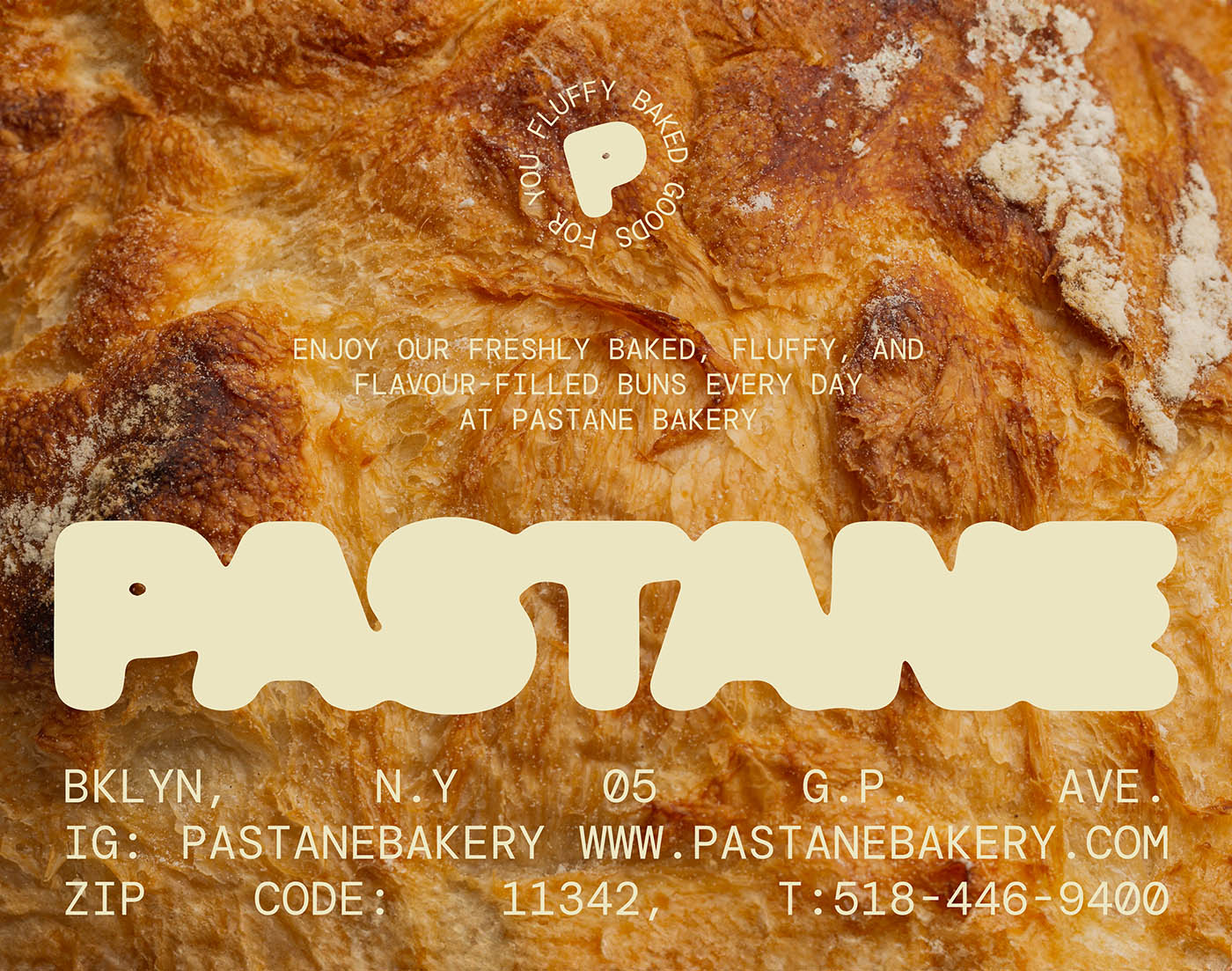
The concept behind Pastane
M: Pastane was designed as a conceptual bakery house envisioned for New York. The project was inspired by the rising process of dough during baking, symbolizing growth and transformation. This idea is visually reflected in the Pastane logo, where the typeface inspired in this process evolves as if “rising” in the oven. To add a dynamic and unique touch, custom stickers were designed for each product, which are applied individually to packaging, reinforcing the brand’s playful yet refined identity.
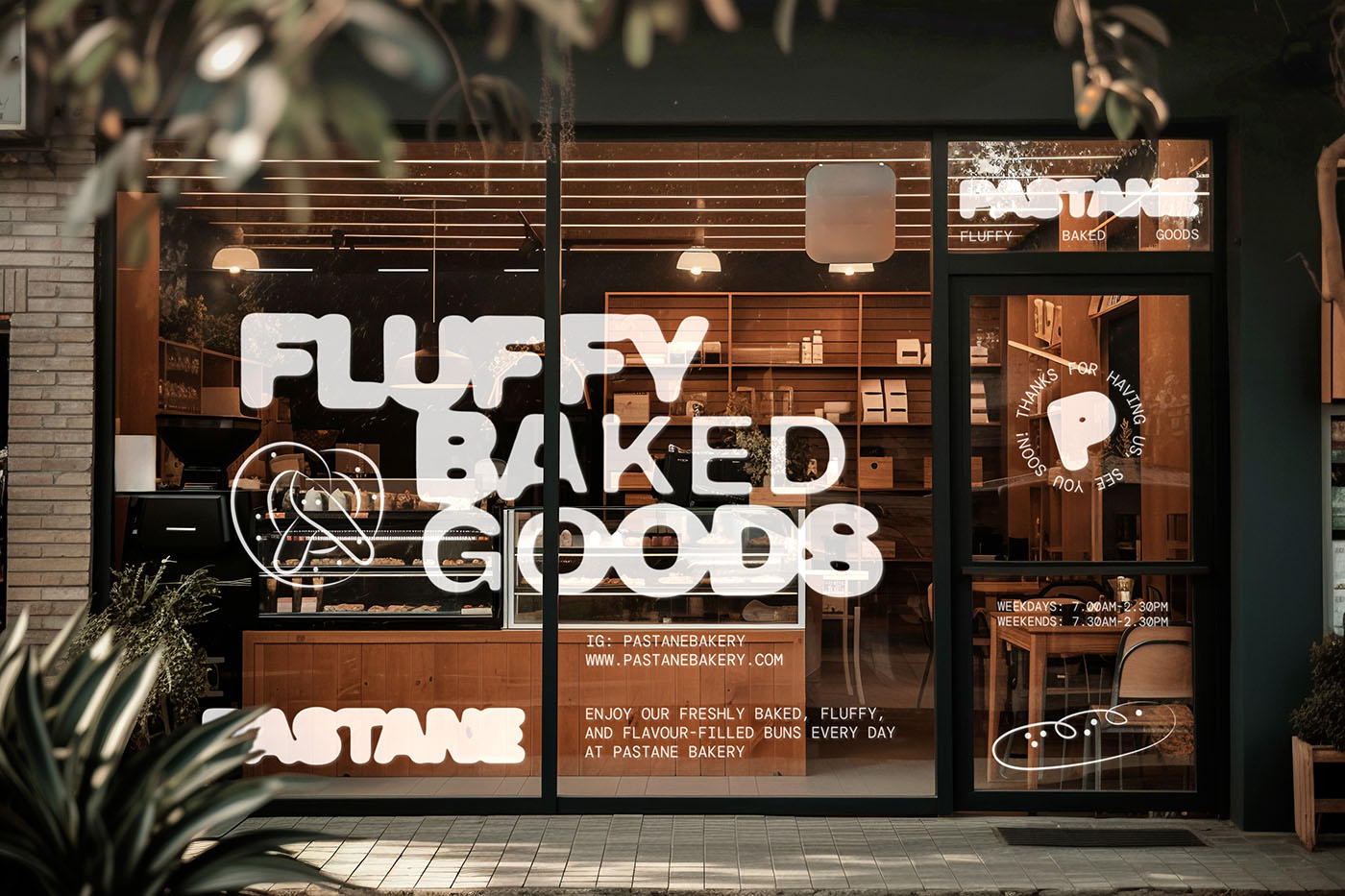
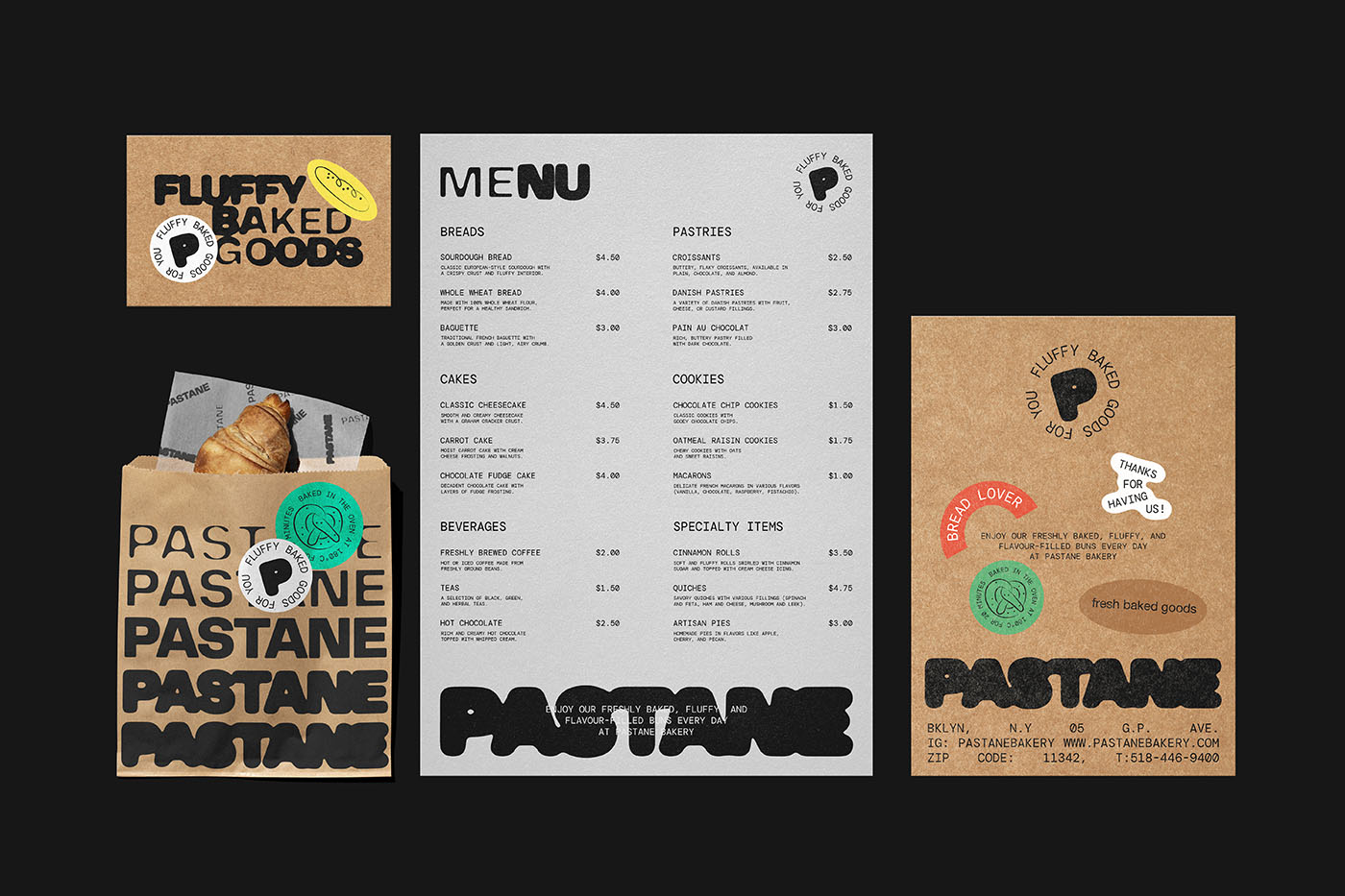
The driving force behind the project
M: The main motivation for this project, characterized by the use of typeface inspired by dough, was to create an innovative branding concept that showcased my creative approach. I aimed to push boundaries and bring an imaginative vision to life, while developing a distinct identity for a modern bakery.
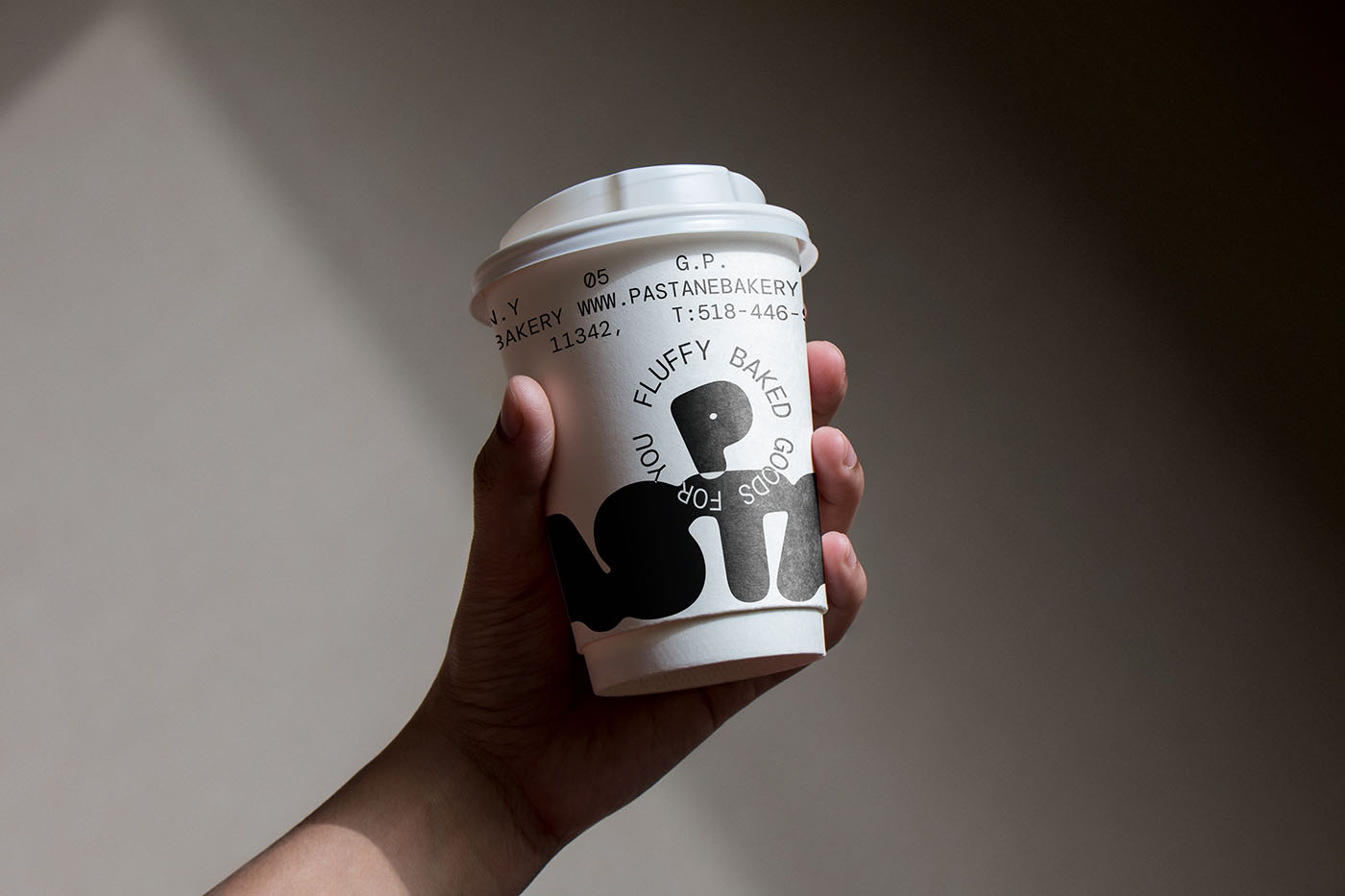
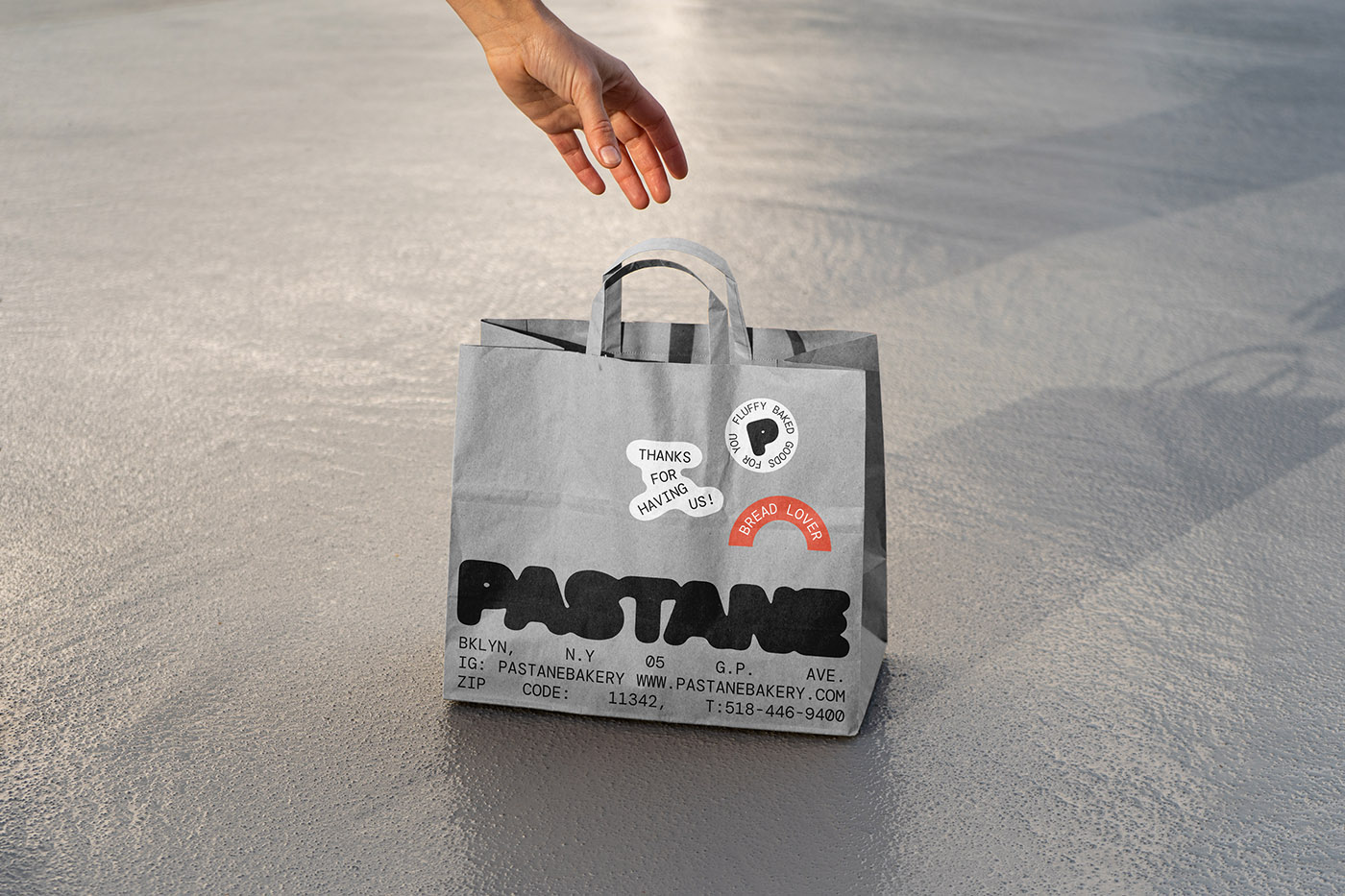
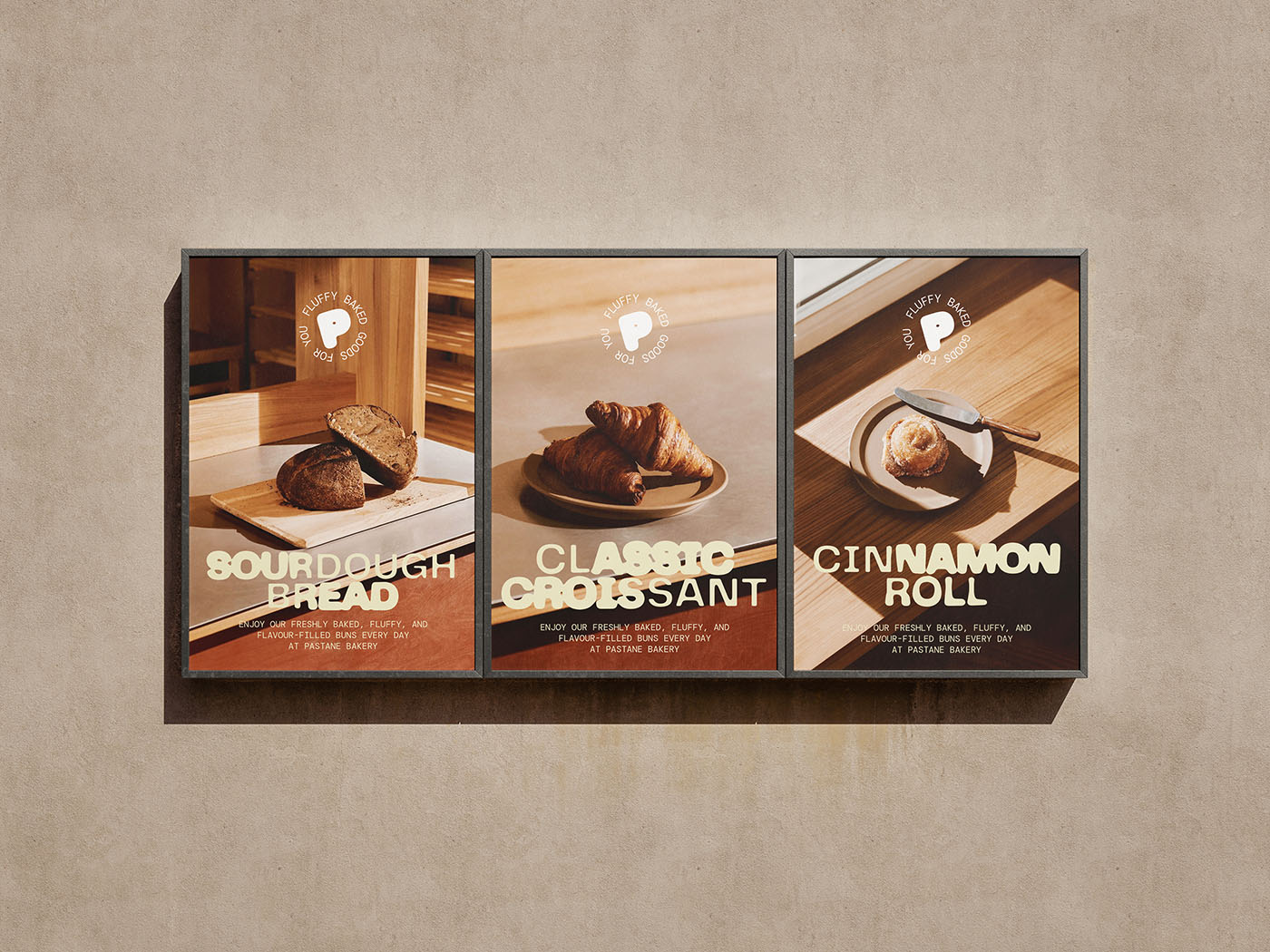
We’re all about type. What fonts did you use?
M: For the logo, I used PP Telegraf by PangramPangram Type Studio, which supported the “typeface inspired by dough” feeling I was looking for. The secondary font is DM Mono by Colophon Foundry. Both fonts complement the brand’s modern yet approachable character.
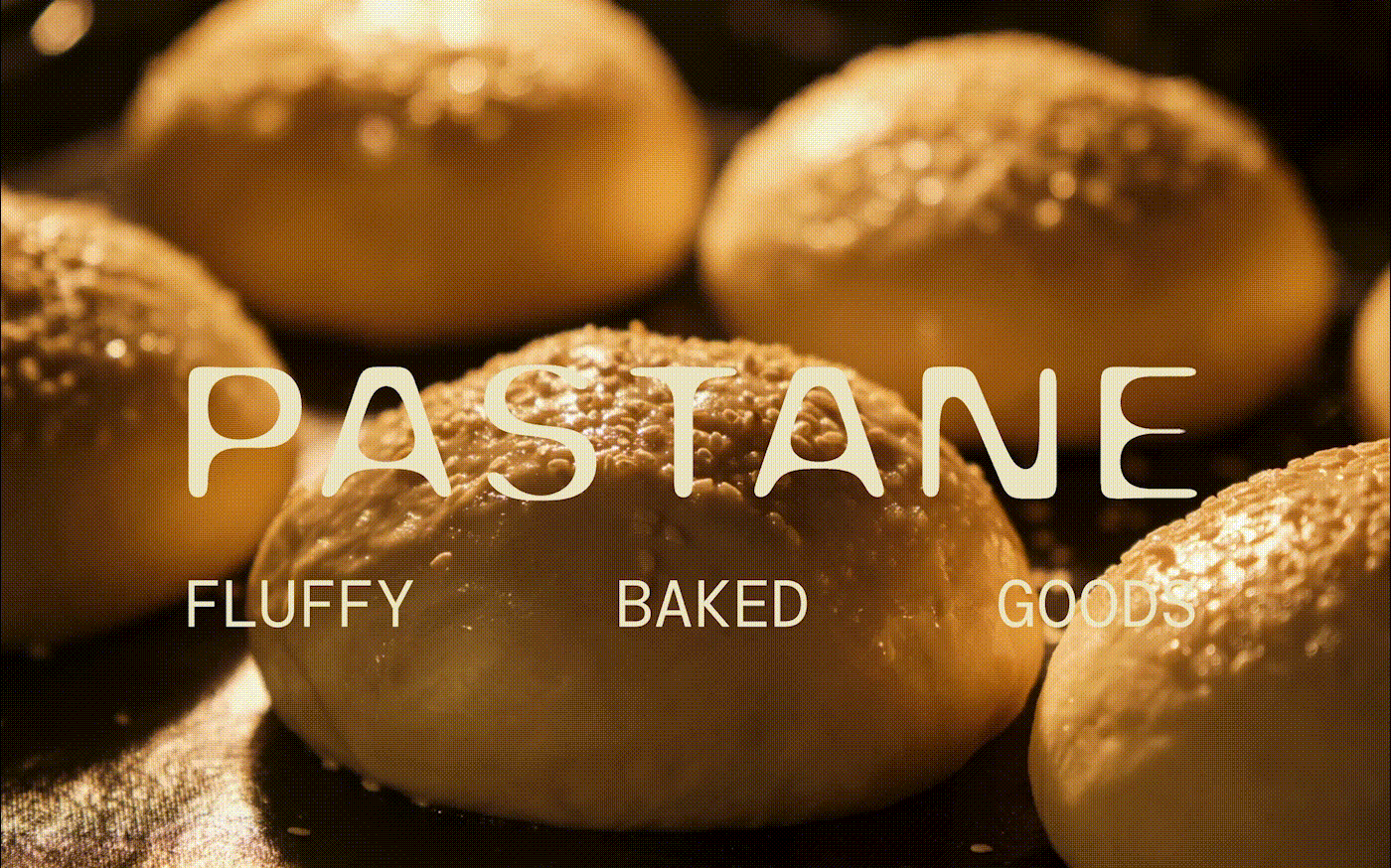
The nature of the project
M: This is a self-initiated project designed to express my creativity and explore new ways of approaching branding for a bakery. The goal was to create a unique design solution that reflects the artisan process of baking in a visual and compelling way.
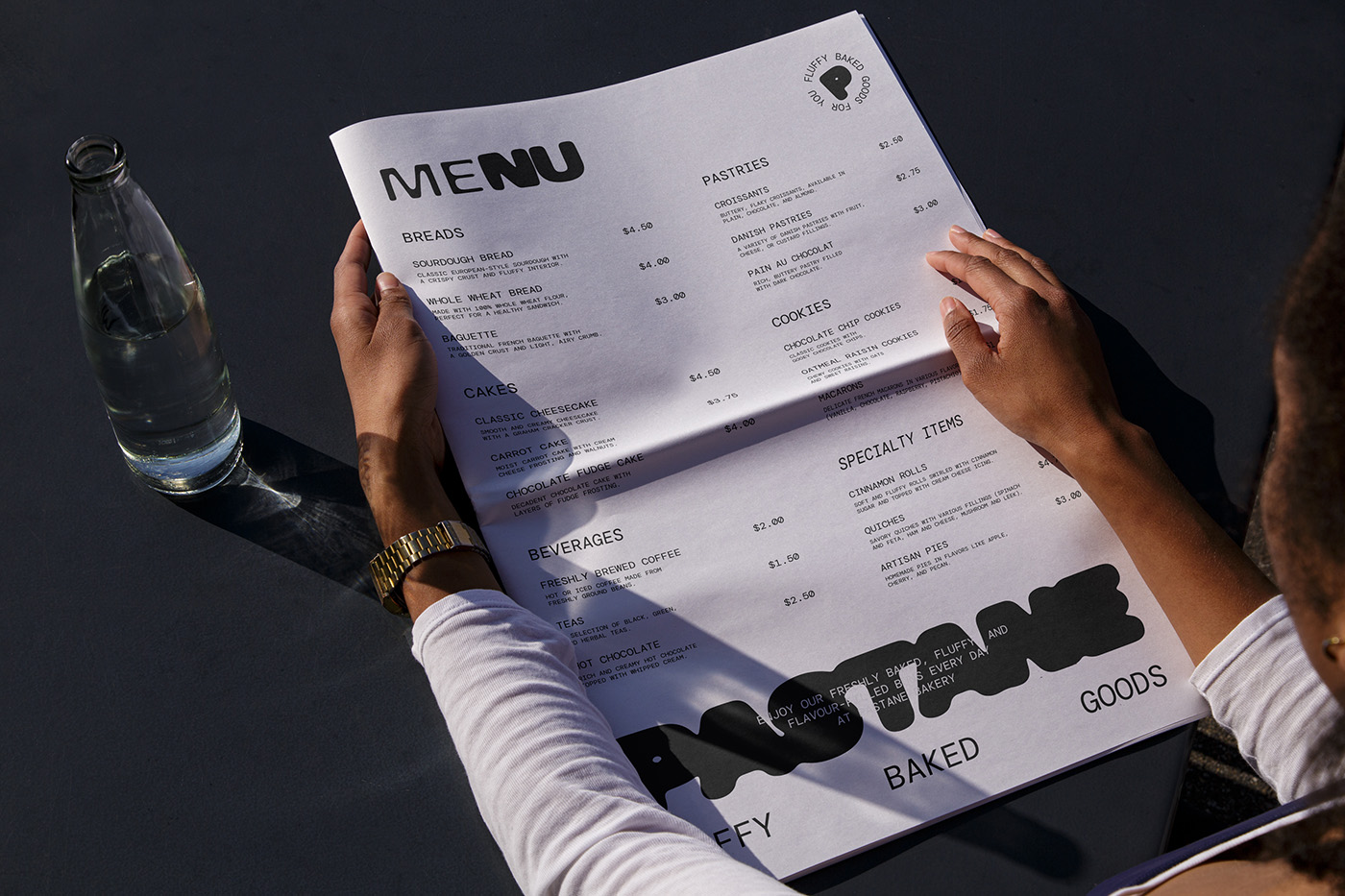
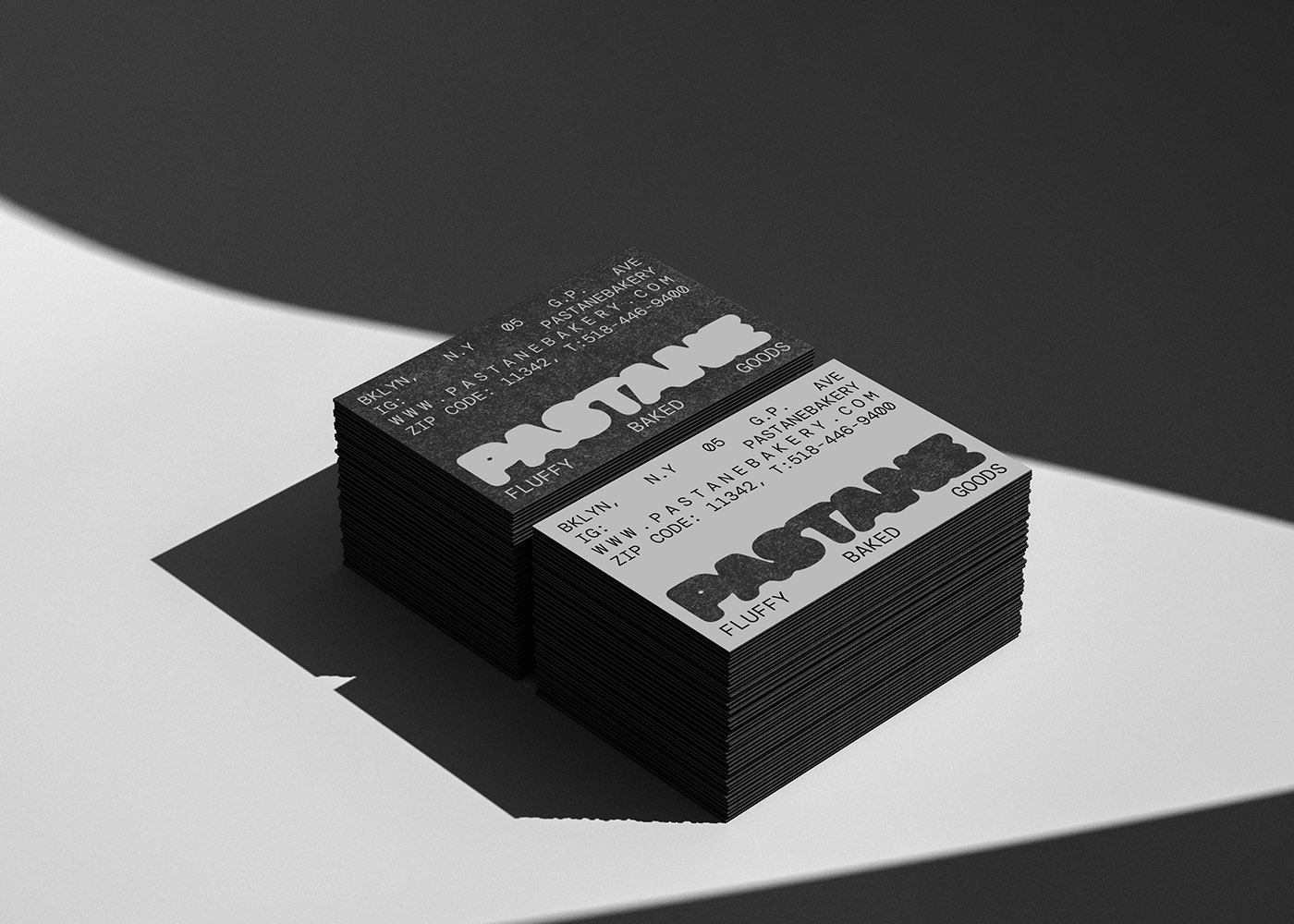
We truly love projects like this, where typeface inspired designs seamlessly blend with concepts that make an immediate impact. When ideas align with the perfect visual elements, magic happens—just like with Pastane.